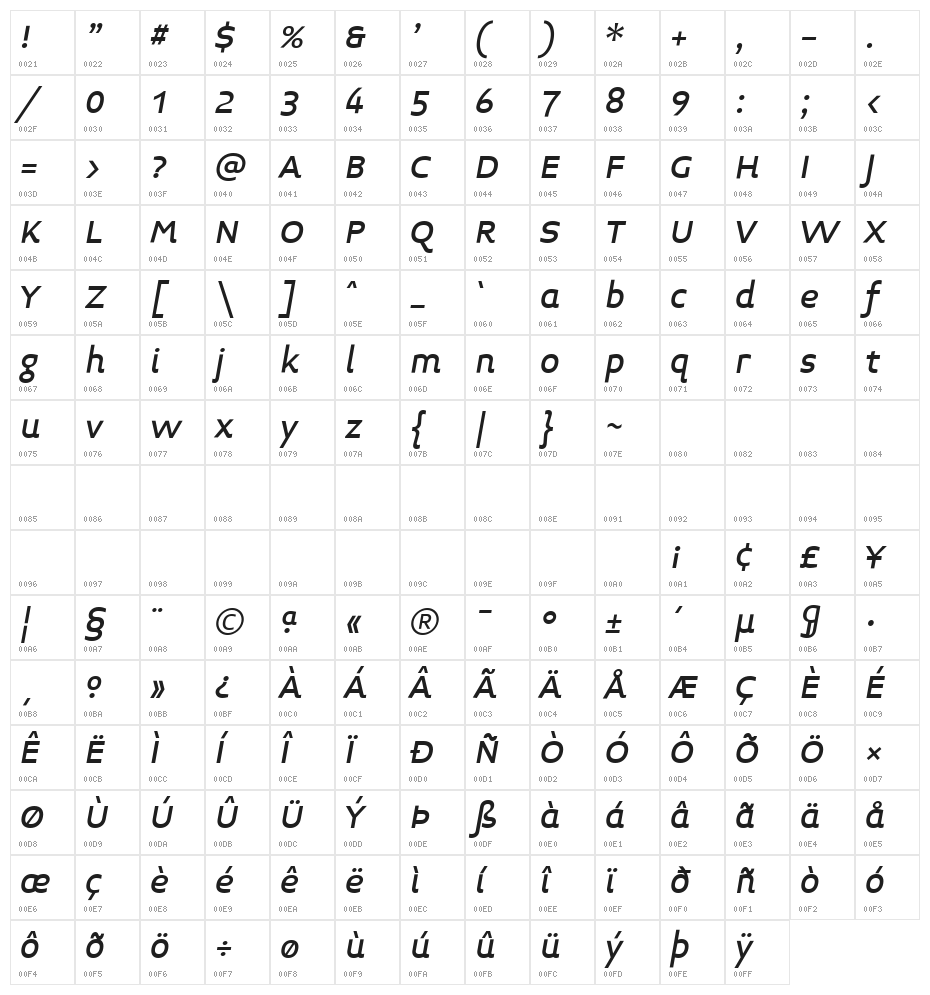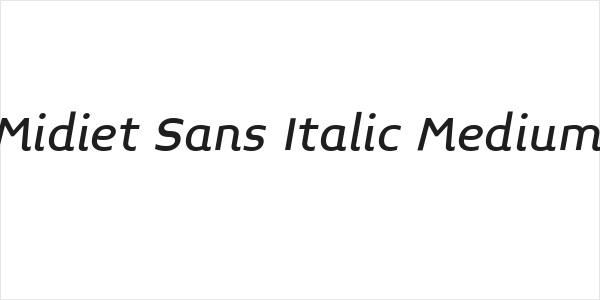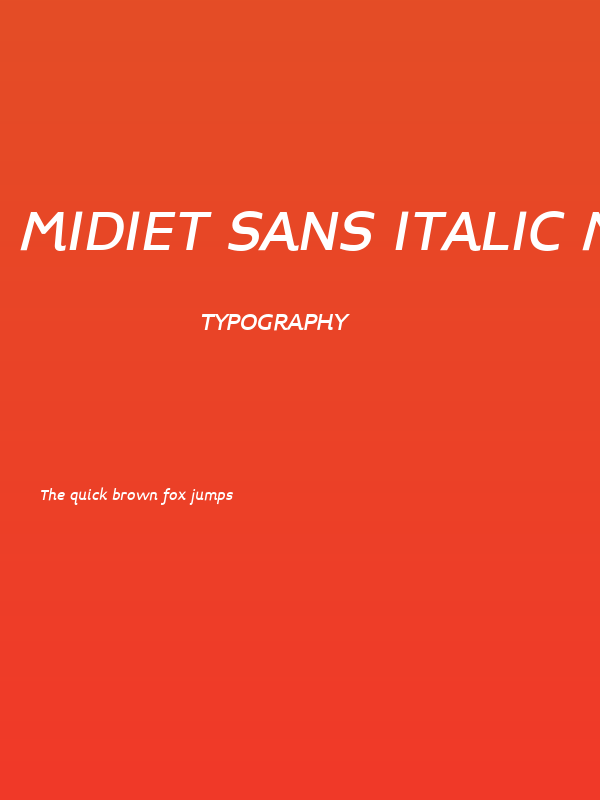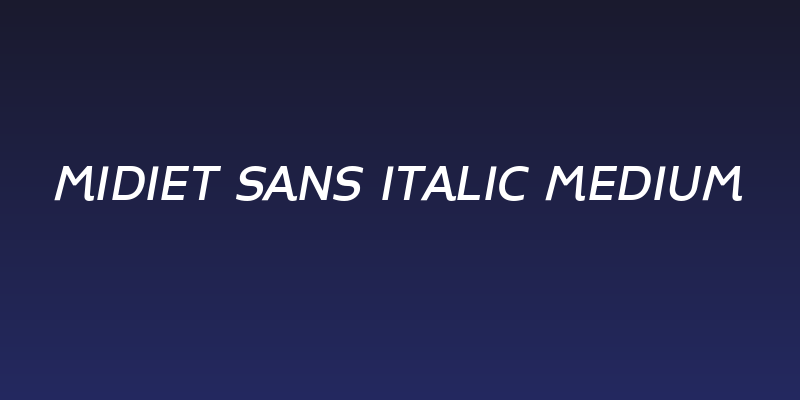
Midiet Sans Italic Medium Font
Midiet Sans Italic Medium Description
This font features a sleek and modern design with a slight italic slant, giving it a dynamic and forward-moving appearance. The characters are well-proportioned, with smooth curves and clean lines that enhance readability. The medium weight provides a balanced presence, making it suitable for both digital and print media. Its sans-serif style contributes to a contemporary and professional look, while the italic angle adds a touch of elegance and sophistication. The numerals and special characters maintain the same aesthetic, ensuring consistency across different uses.
| Proposed Projects | Ideal for branding, advertising, web design, and editorial projects where a modern and elegant touch is desired. |